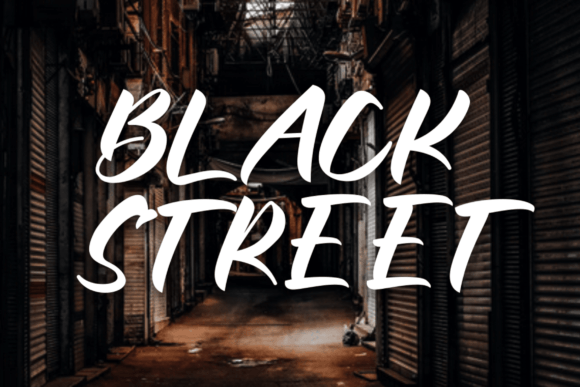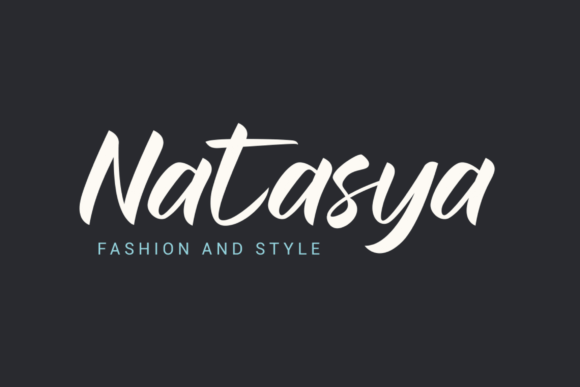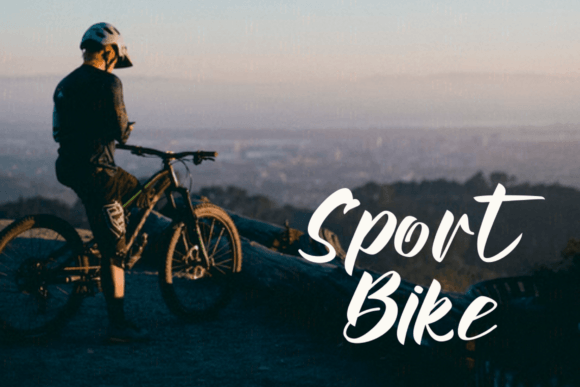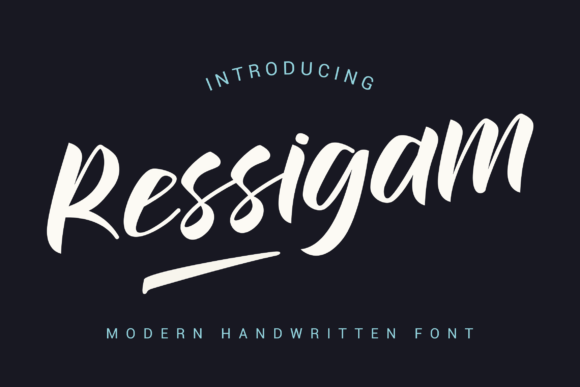
Introduction to Ressigam Font
Ressigam is a bold and authentic handwritten font.
The font is suitable for any branding project like logo, t-shirt printing, export, and many more It will look outstanding in a wide range of contexts.
Why Choose Ressigam Font?
Ressigam Font offers exceptional quality and versatility, making it a valuable addition to your design toolkit. Whether you’re creating for personal projects or commercial use, Ressigam Font delivers professional results.